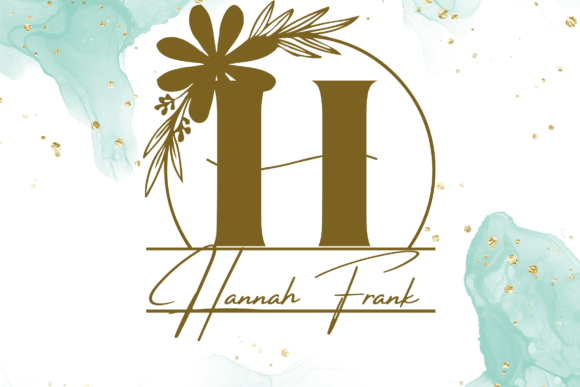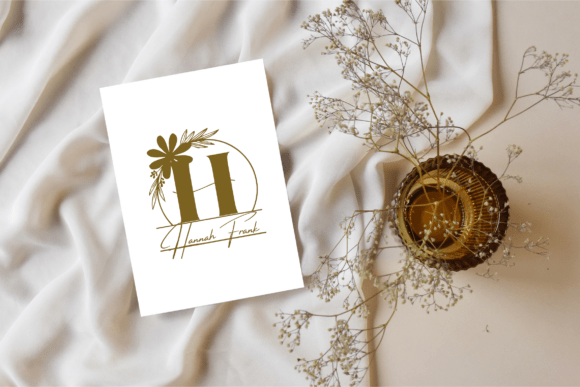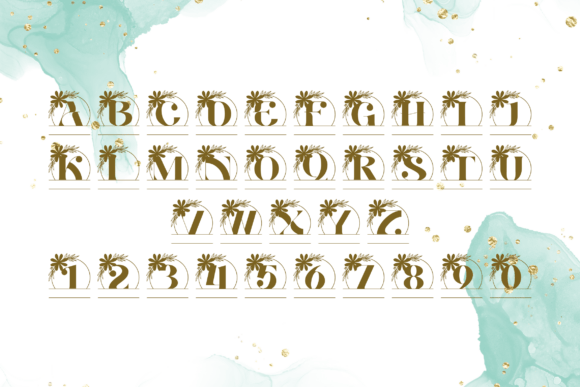
Introducing Adorned Petals Line Monogram Font: Elegance Redefined
In the world of typography, a monogram font can elevate your design from ordinary to extraordinary. For those seeking a blend of sophistication and subtle beauty, the Adorned Petals Line Monogram Font is an exquisite choice. This stunning outline monogram font combines delicate floral line art embellishments with classic serif letters, creating a refined and minimalist aesthetic perfect for various design applications.
Design Features of Adorned Petals Line Monogram
The Adorned Petals Line Monogram Font boasts several distinctive features that set it apart:
- Floral Line Embellishments: Each uppercase letter in this font is meticulously decorated with fine-line floral details. These embellishments add a soft, artistic touch to your designs, making them truly unique.
- Elegant Serif Structure: The classic serif base of the font ensures excellent readability and a timeless appeal. This structure provides a solid foundation for the delicate floral accents, balancing elegance with clarity.
- Minimalist Monogram Style: The clean outlines and carefully placed floral accents make this font perfect for modern, romantic personalization. The minimalist approach ensures that the design remains uncluttered and sophisticated.
Ideal Applications for Adorned Petals Line Monogram
Given its refined and elegant characteristics, the Adorned Petals Line Monogram Font is ideal for a variety of design projects:
- Wedding Monograms: Create beautiful and memorable wedding monograms that reflect the elegance of the special day.
- Custom Branding: Enhance your brand’s identity with a sophisticated and unique monogram that sets you apart from the competition.
- Signature Logos: Design a lasting impression with a signature logo that incorporates the delicate floral and serif elements of this font.
- Feminine Product Packaging: Add a touch of luxury and femininity to your product packaging, making it more appealing to your target audience.
- Stationery: Elevate your stationery designs, such as letterheads, business cards, and invitations, with a touch of elegance.
- Personalized Gifts: Create bespoke gifts with personalized monograms that exude sophistication and thoughtfulness.
Why Choose Adorned Petals Line Monogram?
In a market flooded with generic fonts, the Adorned Petals Line Monogram Font offers several compelling reasons to choose it for your next design project:
- Unique Aesthetic: The combination of floral line art and serif letters provides a distinctive look that will make your designs stand out.
- Versatility: This font can be used across various design applications, from digital projects to print materials, offering great flexibility.
- Elegance and Sophistication: The refined and minimalist design ensures that your projects exude elegance and sophistication, perfect for high-end clients or personal branding.
Tips for Using Adorned Petals Line Monogram Effectively
To maximize the impact of the Adorned Petals Line Monogram Font in your designs, consider the following tips:
- Pair with Complementary Fonts: Use the Adorned Petals Line Monogram Font in conjunction with simple, clean fonts to create a balanced and harmonious design.
- Adjust Size and Color: Experiment with different sizes and colors to ensure the monogram stands out appropriately in your design.
- Consider the Background: Ensure that the background of your design complements the delicate lines and floral accents of the font, enhancing its beauty.
The Adorned Petals Line Monogram Font is a beautiful and versatile design asset that can elevate a wide range of projects. Its unique blend of floral line art and classic serif letters offers a sophisticated and elegant aesthetic, perfect for designers and crafters looking to add a touch of luxury to their work. Whether you’re creating wedding monograms, custom branding, or personalized gifts, this font is sure to impress with its refined and minimalist charm.